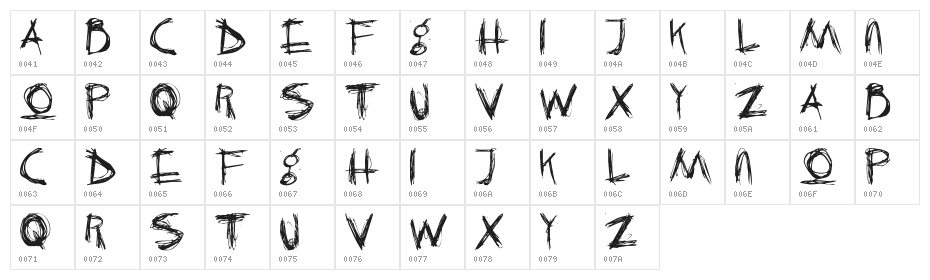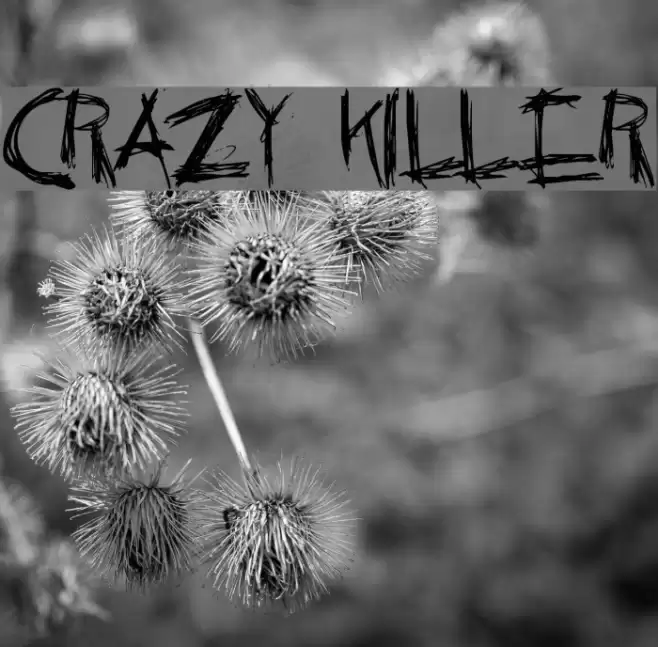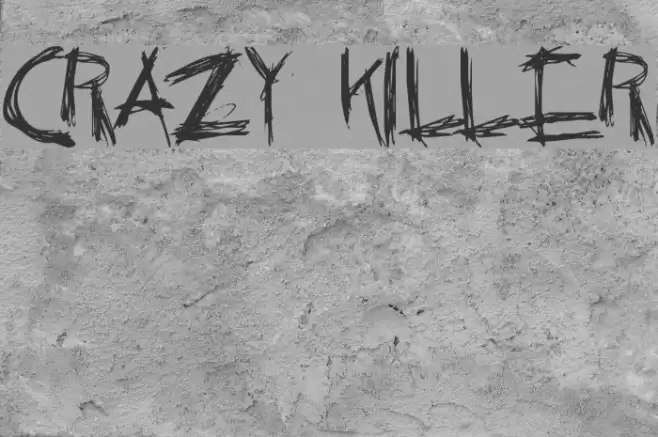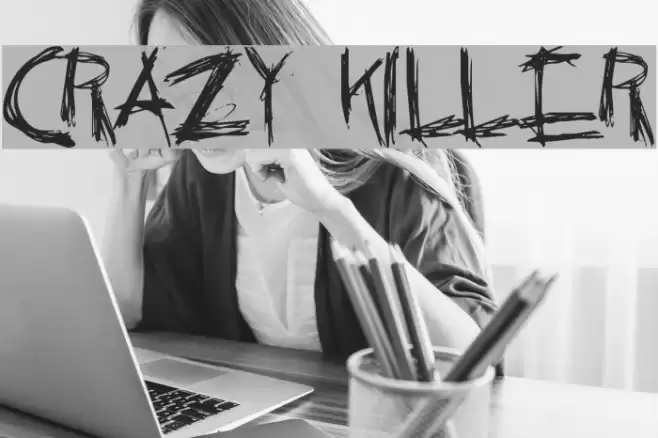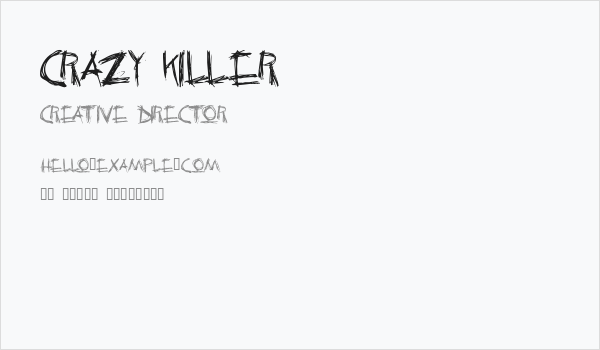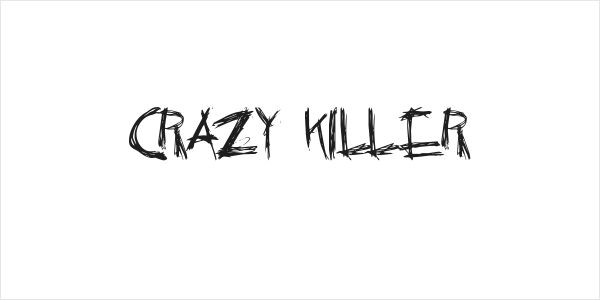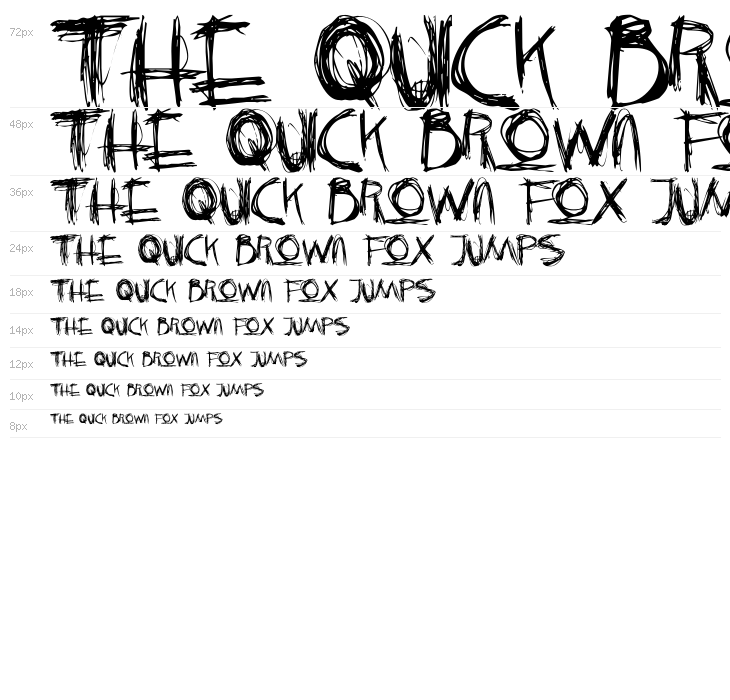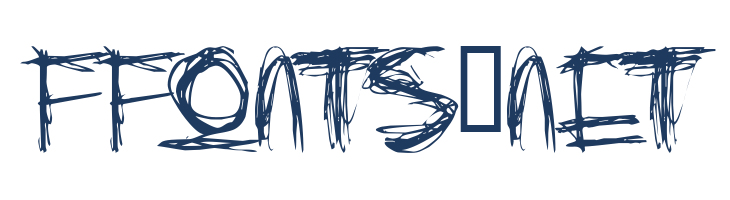
Crazy Killer Font
Crazy Killer Description
This font has a wild, chaotic appearance, characterized by jagged, uneven strokes that give it a hand-drawn, distressed look. The uppercase and lowercase letters maintain a consistent style, with exaggerated angles and sharp edges that create a sense of urgency and intensity. The numbers and special characters follow the same erratic design, enhancing the overall edgy aesthetic. This font is ideal for projects that require a bold, unconventional look, such as horror-themed designs, edgy posters, or album covers.
| Proposed Projects | Horror-themed designs, edgy posters, album covers, rebellious branding. |